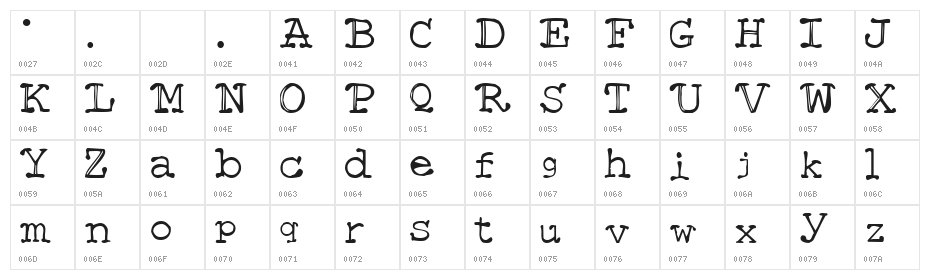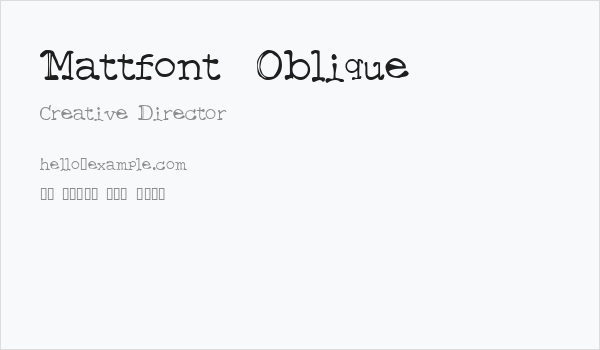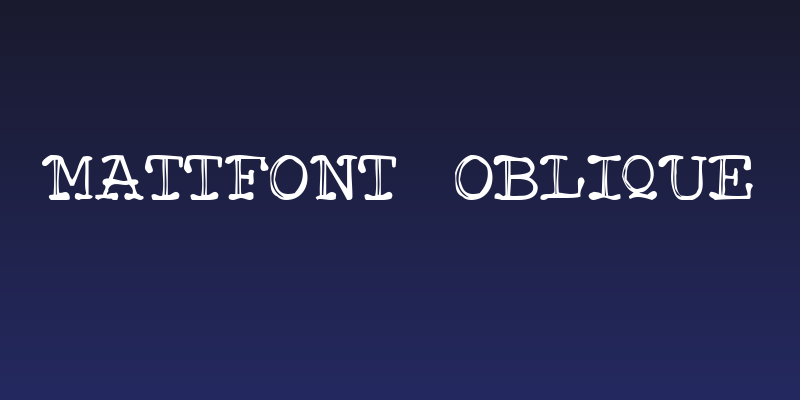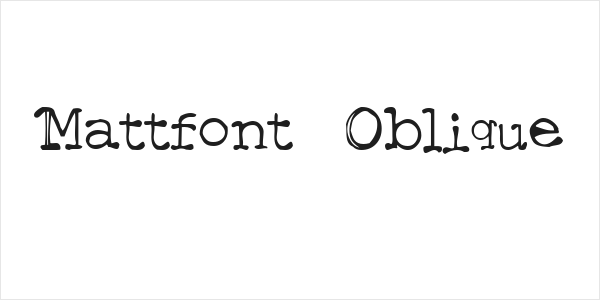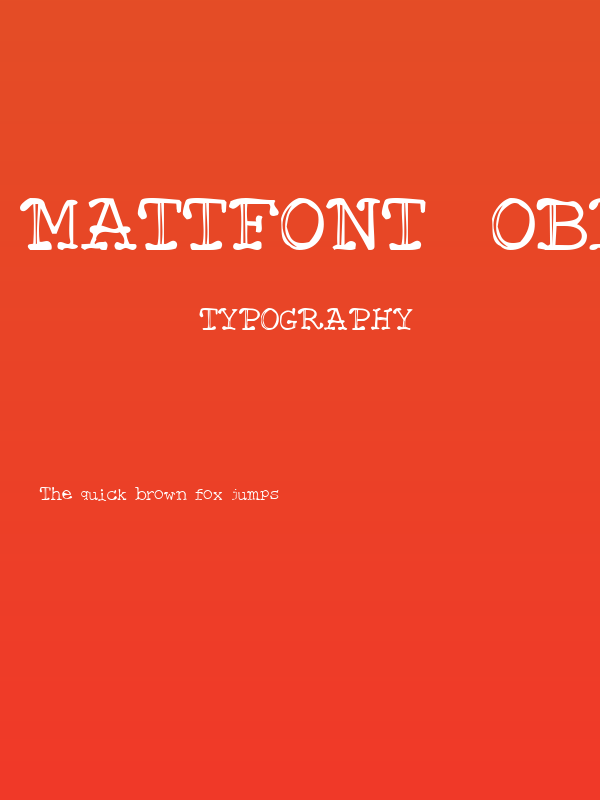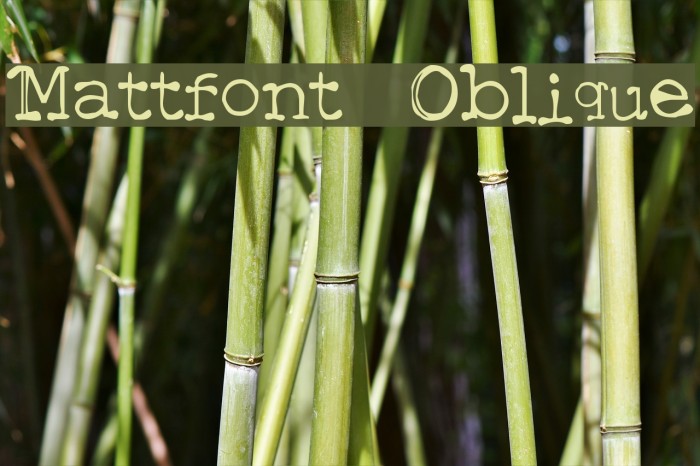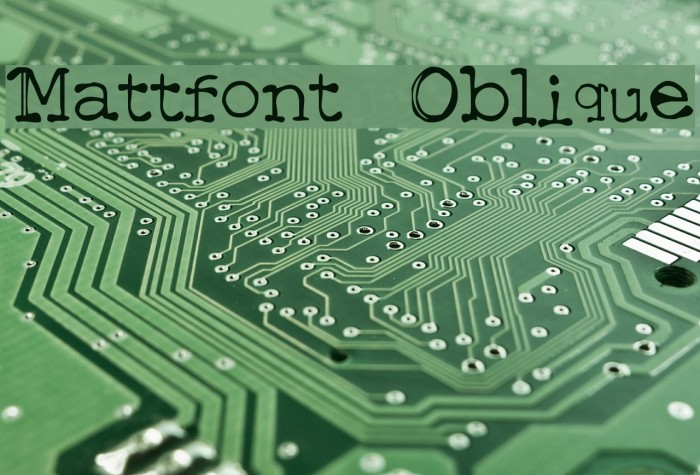
Mattfont Oblique Font
Mattfont Oblique Description
This font features a playful and whimsical design, characterized by its rounded, uneven strokes and slightly irregular shapes. The letters have a hand-drawn quality, giving them a casual and friendly appearance. The uppercase letters are bold and prominent, while the lowercase letters maintain a consistent style with slight variations in height and width. The numbers and special characters are designed to match the overall quirky aesthetic, making them suitable for creative and informal projects. The font's unique style is ideal for adding a touch of personality and charm to any design.
| Proposed Projects | Ideal for children's books, greeting cards, playful branding, and creative posters. |